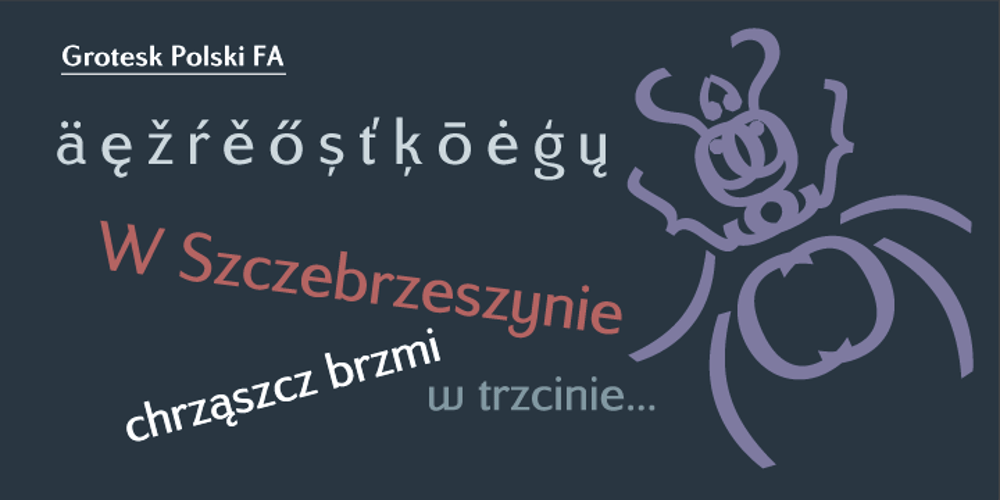
Grotesk Polski FA Font Family was designed by Artur Frankowski and published by Fontarte. Grotesk Polski FA contains 4 styles and family package options. Grotesk Polski FA developed in 1998-2006, was inspired by the Polish eminent pre-WWII text typeface – Antykwa Półtawskiego. Adam Półtawski designing his antiqua had took into consideration the special qualities of Polish language. He designed unique letters: k, w, y, z and R, K, Y. Another unique element of his typeface was polygonal dot. Grotesk Polski keeps all that shapes and goes further. It is a contemporary sans serif in four cuts: Regular, Italic, Bold and Stencil. The proportions of the typeface were rebalanced to give it a neo-grotesque form with a Polish twist.